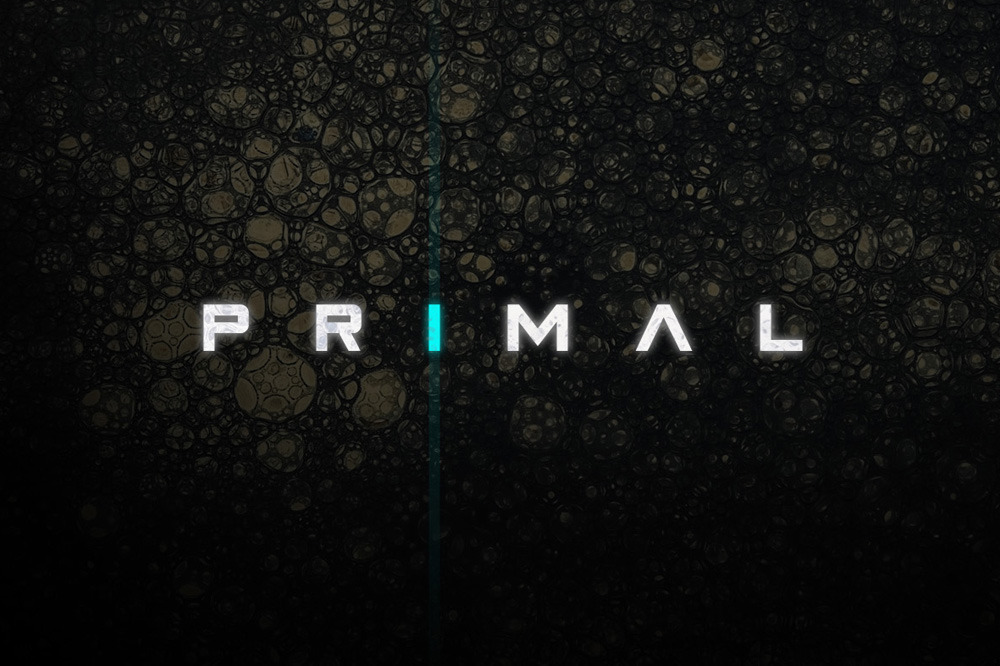
Primal - Futuristic Font
Primal is a font inspired by old Science Fiction Horror movies. I particularly enjoy using it with wide spacing for titles.
It includes Uppercase multilingual letters, alternate letters, numbers and punctuation. Toggle caps lock to use alternate versions of some letters.